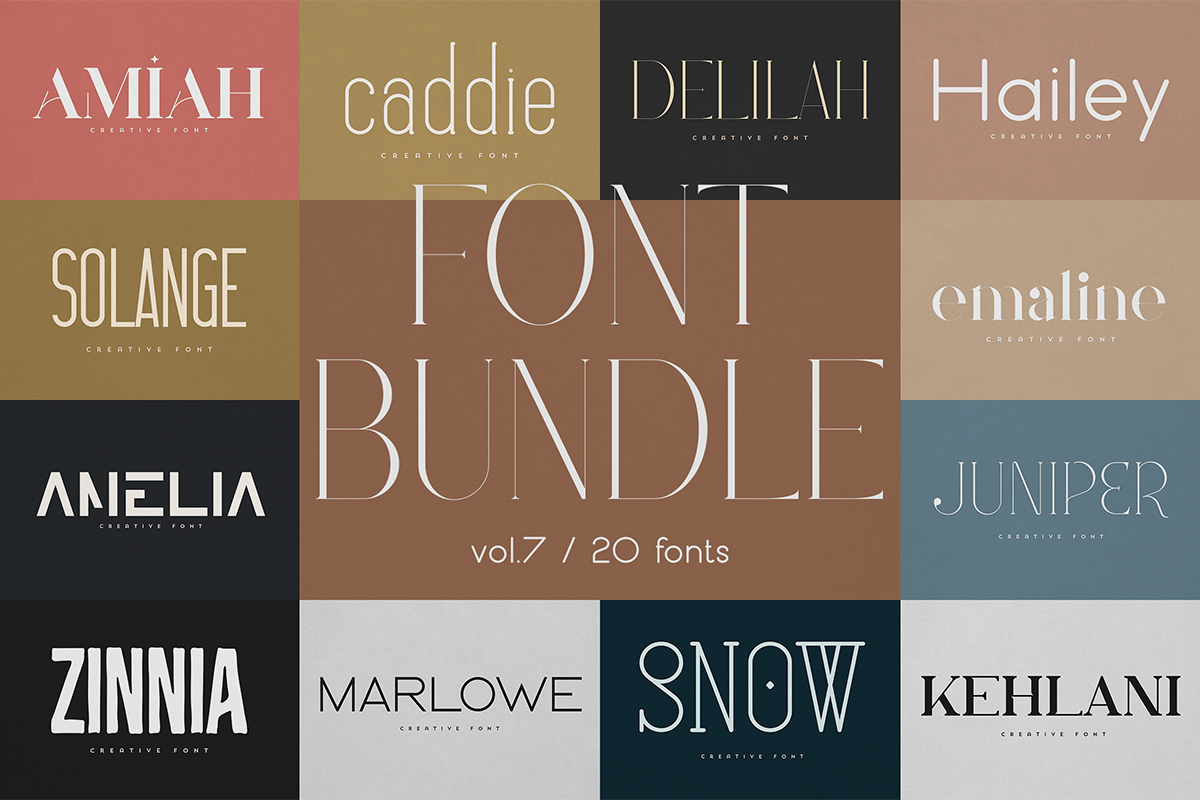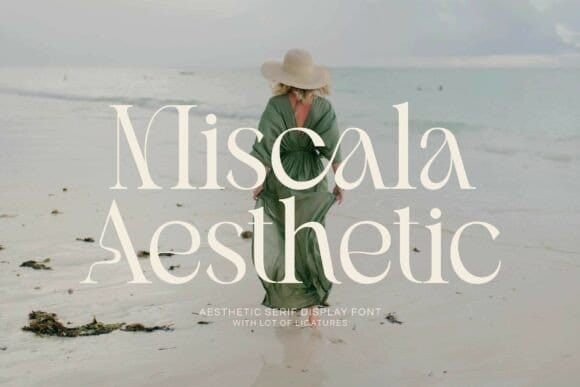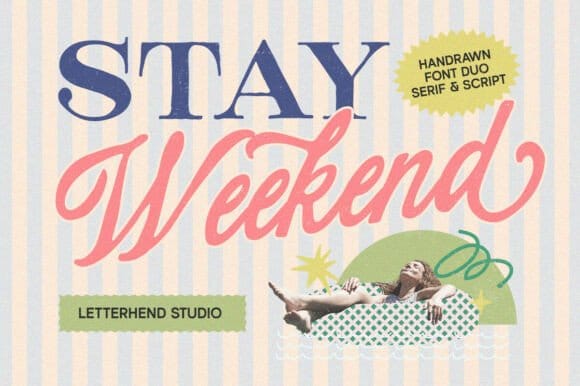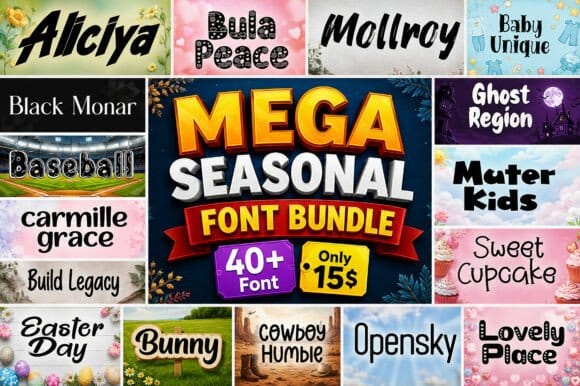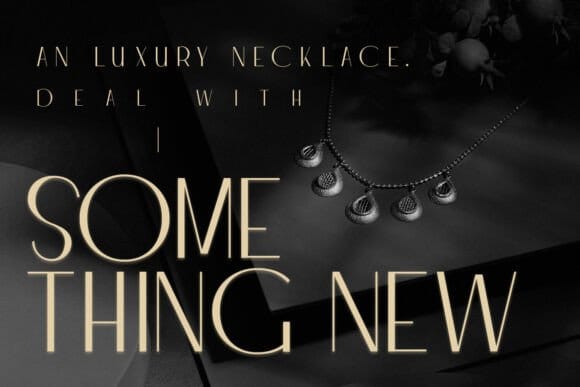
Discover the best Canva fonts, font pairings, and aesthetic combinations for your social media, branding, and design projects. Save time and create stunning designs instantly.
Aesthetic Fonts
Trendy, aesthetic fonts for Instagram, Pinterest, and branding
Font Pairings
Best Canva font combinations that work perfectly together
Seasonal Fonts
Spring, summer, fall, winter — seasonal font collections
Luxury Fonts
Premium, elegant fonts for luxury brands and sophisticated designs
Featured Font Templates And Pairings
What are the best fonts on Canva?
The best fonts depend on your project. For social media, try Montserrat, Quicksand, or Playfair Display. For logos, Bebas Neue, Oswald, or Cinzel work well. For elegant designs, Cormorant Garamond, Libre Baskerville, or Great Vibes are popular choices.
What fonts go well together in Canva?
Classic pairings include: Montserrat + Playfair Display (modern + elegant), Oswald + Lora (bold + readable), and Raleway + Roboto (minimal + clean). The key is contrast: a bold heading paired with a readable body font.
What are the most popular Canva fonts in 2026?
Currently trending: Satoshi, Clash Display, Boska, and Zodiak for modern designs. For aesthetic styles, Moonlight, Autumn, and Milkshake are very popular among lifestyle creators.
Can I use Canva fonts for YouTube thumbnails?
Yes! Bold fonts like Anton, Bebas Neue, and Montserrat Bold are ideal for YouTube thumbnails because they are highly readable on mobile devices. Use 60-80px font size for main text.